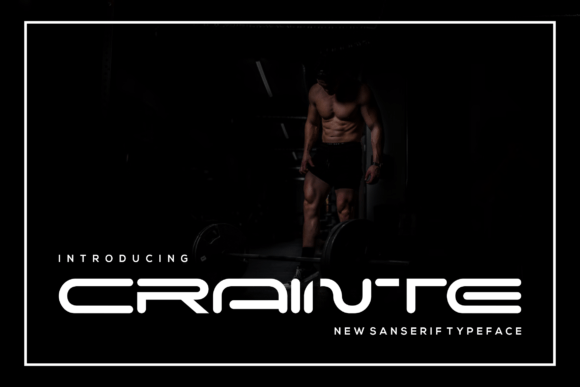
Crainte: A Stylish Font for Modern Design
In the world of typography, the right font can transform a design from ordinary to extraordinary. Crainte is one such font that stands out with its modern and stylish appearance. Whether you're working on a website, a branding project, or a print design, Crainte offers a unique blend of elegance and readability that can elevate your work.
Designed with a focus on clarity and aesthetics, Crainte is ideal for a variety of applications. Its clean lines and balanced proportions make it suitable for both digital and print media. The fontโs versatility allows it to be used in different contexts, from headings and titles to body text and logos.
The Characteristics of Crainte
Crainte features a contemporary look that sets it apart from traditional serif and sans-serif fonts. Its letterforms are carefully crafted to ensure legibility at various sizes, making it a practical choice for both small and large text. The font also includes a range of weights and styles, giving designers flexibility in their projects.
One of the standout features of Crainte is its subtle contrast between thick and thin strokes. This contrast adds visual interest without compromising readability. The fontโs open counters and generous spacing further enhance its legibility, especially in long-form text.
Additionally, Crainte comes with a comprehensive set of glyphs, including uppercase and lowercase letters, numbers, punctuation, and special characters. This makes it a reliable choice for multilingual projects and complex typographic layouts.
Advantages of Using Crainte
There are several benefits to incorporating Crainte into your design work. One of the main advantages is its ability to add a touch of sophistication to any project. Whether you're designing a logo, a brochure, or a website, Crainte can help convey a sense of modernity and professionalism.
Another benefit of Crainte is its adaptability. The font works well in both digital and print environments, making it a versatile choice for designers who need a consistent look across different mediums. Its clean and modern aesthetic also ensures that it remains relevant over time, avoiding the risk of appearing outdated.
Use Cases for Crainte
Crainte is suitable for a wide range of design applications. In web design, it can be used for headings, buttons, and other UI elements to create a visually appealing interface. Its clean lines and modern feel make it an excellent choice for websites that aim to convey innovation and style.
In branding, Crainte can be used for logos, business cards, and other marketing materials. Its distinctive look helps establish a strong visual identity that stands out from competitors. The fontโs versatility also allows it to be paired with other typefaces to create a cohesive brand style.
For print design, Crainte is ideal for posters, magazines, and brochures. Its readability and aesthetic appeal make it a great choice for projects that require both visual impact and clear communication. The fontโs high-quality rendering ensures that it looks sharp and professional in printed materials.
Considerations When Using Crainte
While Crainte is a powerful font, there are a few considerations to keep in mind when using it. One important factor is the context in which it is applied. Although it is highly readable, it may not be the best choice for very long blocks of text due to its relatively narrow x-height and subtle contrast.
Designers should also consider the overall composition of their work when using Crainte. Since the font has a distinct style, it should be used in a way that complements the rest of the design rather than overwhelming it. Pairing it with simpler fonts can help balance the visual hierarchy and maintain a cohesive look.
Crainte is a font that combines modern design with practical functionality. Its unique characteristics make it a valuable tool for designers looking to create visually appealing and professional work. By understanding its strengths and limitations, designers can effectively incorporate Crainte into their projects and achieve outstanding results.